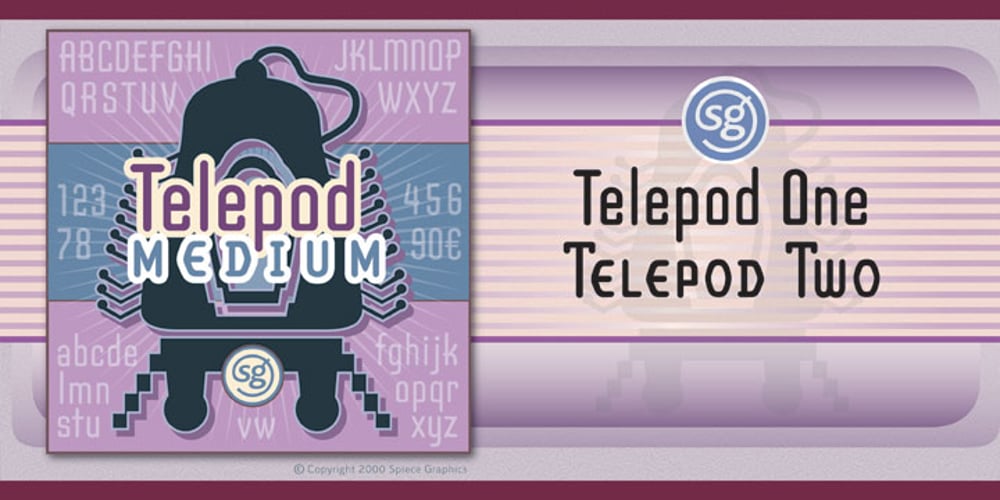
Telepod SG
Telepod SG font
Telepod SG Font Family was designed by Jim Spiece and published by Spiece Graphics. Telepod SG contains 2 styles and family package options. Telepod One is based on an old Speedball lettering style and has a very retro look and feel. Figures and lowercase letters have been added to the original condensed round gothic design. Telepod Two is its alternate. It not only contains additional cap alternates but a very useful set of small cap letters and old style figures. Telepod Two has a slightly different retro-futuristic feel and can easily stand by itself or provide interesting variations to Telepod One. Telepod One & Two are also available in the OpenType Std format. Some new characters have been added to these OpenType versions. Advanced features currently work in Adobe Creative Suite InDesign, Creative Suite Illustrator, and Quark XPress 7. Check for OpenType advanced feature support in other applications as it gradually becomes available with upgrades.